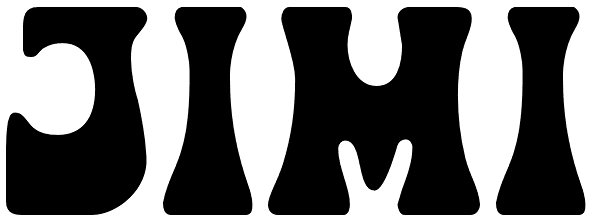
Jimi
Jimi is a tribute to classic rock posters of the sixties and seventies. It was inspired by and modeled after a 1969 sheet of dry transfer letters. Named after the famous American rock and blues guitarist Jimi Hendrix. Ideal for any design that...